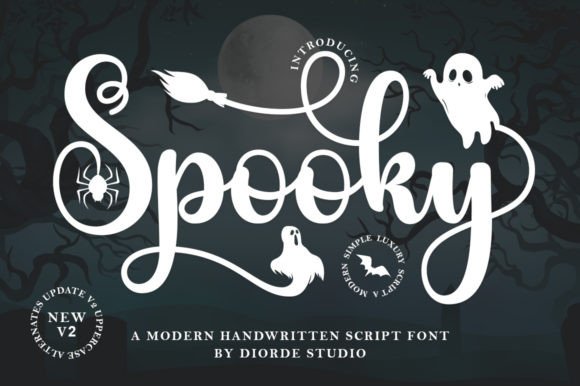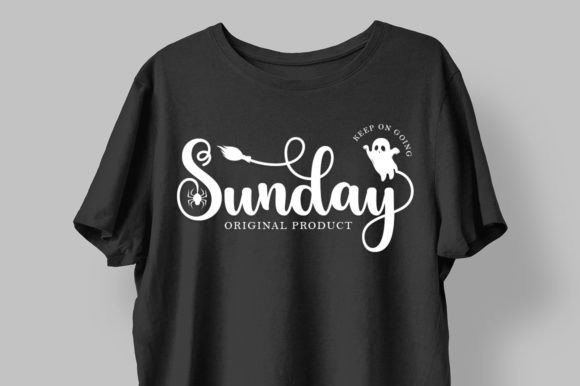
Spooky Font
Spooky is a fun Halloween themed font. Masterfully designed to become a true favorite, this font has the potential to bring each of your creative ideas to the highest level!